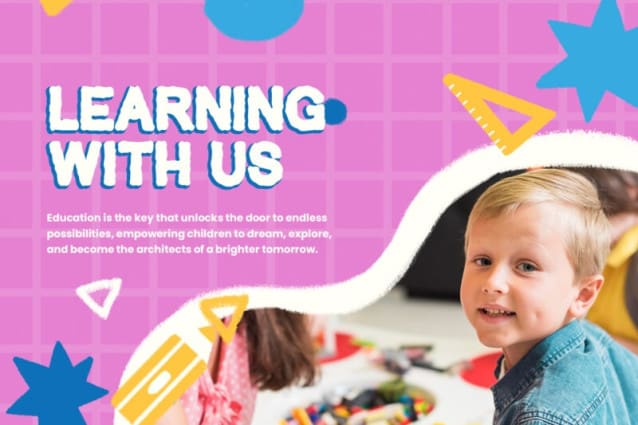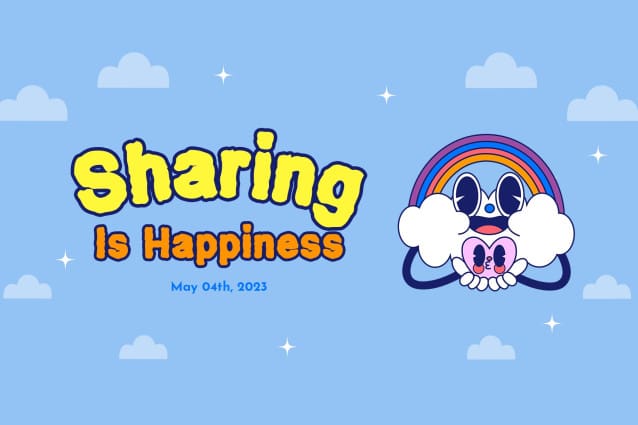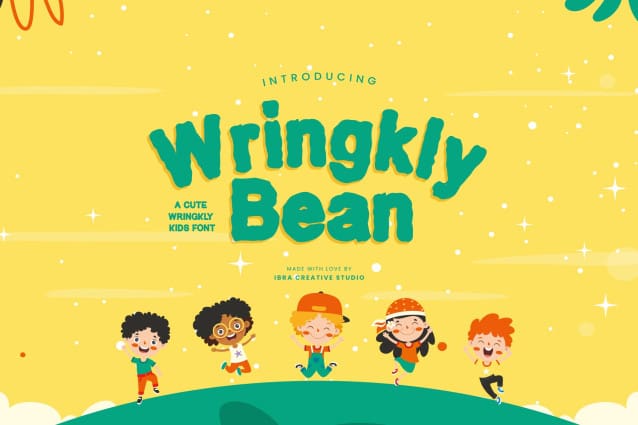
Wrinkly Bean Font
Wrinkly Bean Font, a delightful and whimsical kids’ font, encapsulates the essence of youthful charm with its endearing and playful design. The letters are artfully crafted, boasting a perfect balance of cute and wrinkle-like details that add a touch of character to each character. The font’s rounded edges and gentle curves mimic the innocence and spontaneity of children’s handwriting, creating a warm and inviting feel. The subtle wrinkles adorning each letter evoke a sense of comfort and nostalgia, as if each stroke tells a story of laughter and joy.
Wrinkly Bean Font is not just a font; it’s a visual embodiment of the carefree and delightful world of childhood, making it an ideal choice for projects aimed at capturing the hearts of young audiences.